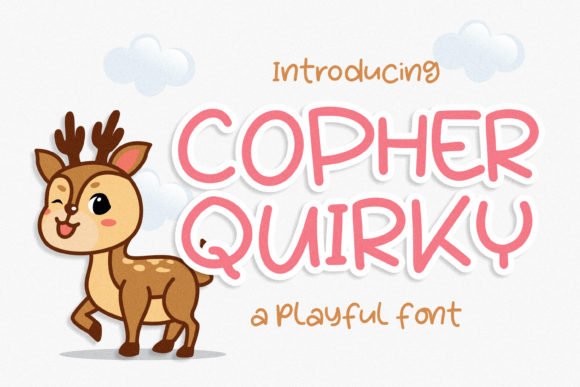
The Quirky Touch of Creativity
Have you ever sat down at your desk, staring at a blank page, and suddenly a spark of creativity strikes? The words start flowing, and before you know it, you’re lost in a world of imagination and possibility. That’s exactly what happens when designers get their hands on the right tools – and for many, that tool is the Copher Quirky Font.
This premium font is more than just a collection of letters; it’s a key to unlocking a world of whimsy and playfulness. With its quirky touch, Copher Quirky Font is the perfect fit for a wide range of creative projects, from children’s books to logos and posters.
For designers, Copher Quirky Font offers a valuable asset: the ability to add a unique and eye-catching touch to any project. Whether you’re working on a personal or professional project, this font is sure to bring a smile to your client’s face – or a spark to your own creative flame.
Copher Quirky Font Key Features
- Unique Characteristics: Copher Quirky Font features a quirky, hand-drawn design with unique letterforms and ligatures, perfect for adding a touch of personality to your designs.
Copper Quirky Font Review
Copper Quirky is a delightful font that brings a unique blend of elegance and playfulness to your designs. I’ve had the pleasure of working with it, and here’s my honest take on it.
- Unique Personality: Copper Quirky exudes a charming, quirky vibe that sets it apart from more traditional fonts.
- Legibility: Despite its whimsical nature, Copper Quirky is surprisingly legible, making it perfect for body text.
- Wide Range of Uses: From headings to paragraphs, Copper Quirky is versatile and can be used in a variety of contexts.
- Overuse Risk: Copper Quirky’s distinctiveness can be a double-edged sword – use it too much, and it might start to feel overdone.
- Limited Customization: While Copper Quirky is beautiful, it’s not the most customizable font out there, which might limit its appeal for some designers.
Copper Quirky is a fantastic addition to any designer’s toolkit. Its unique personality and versatility make it a great choice for projects where you want to add a touch of whimsy. Just be mindful of the potential for overuse and limited customization options.
Copher Quirky Font: A Practical Application Guide
For optimal results, use Copher Quirky Font for headings and titles, and pair it with a clean and simple font for body text.
To create a unique design, use Copher Quirky Font for custom illustrations and graphics, and combine it with other creative elements.
For presentations and reports, use Copher Quirky Font to add a touch of personality and whimsy to your text.
Use Copher Quirky Font for headings, titles, and quotes to add visual interest to your designs.